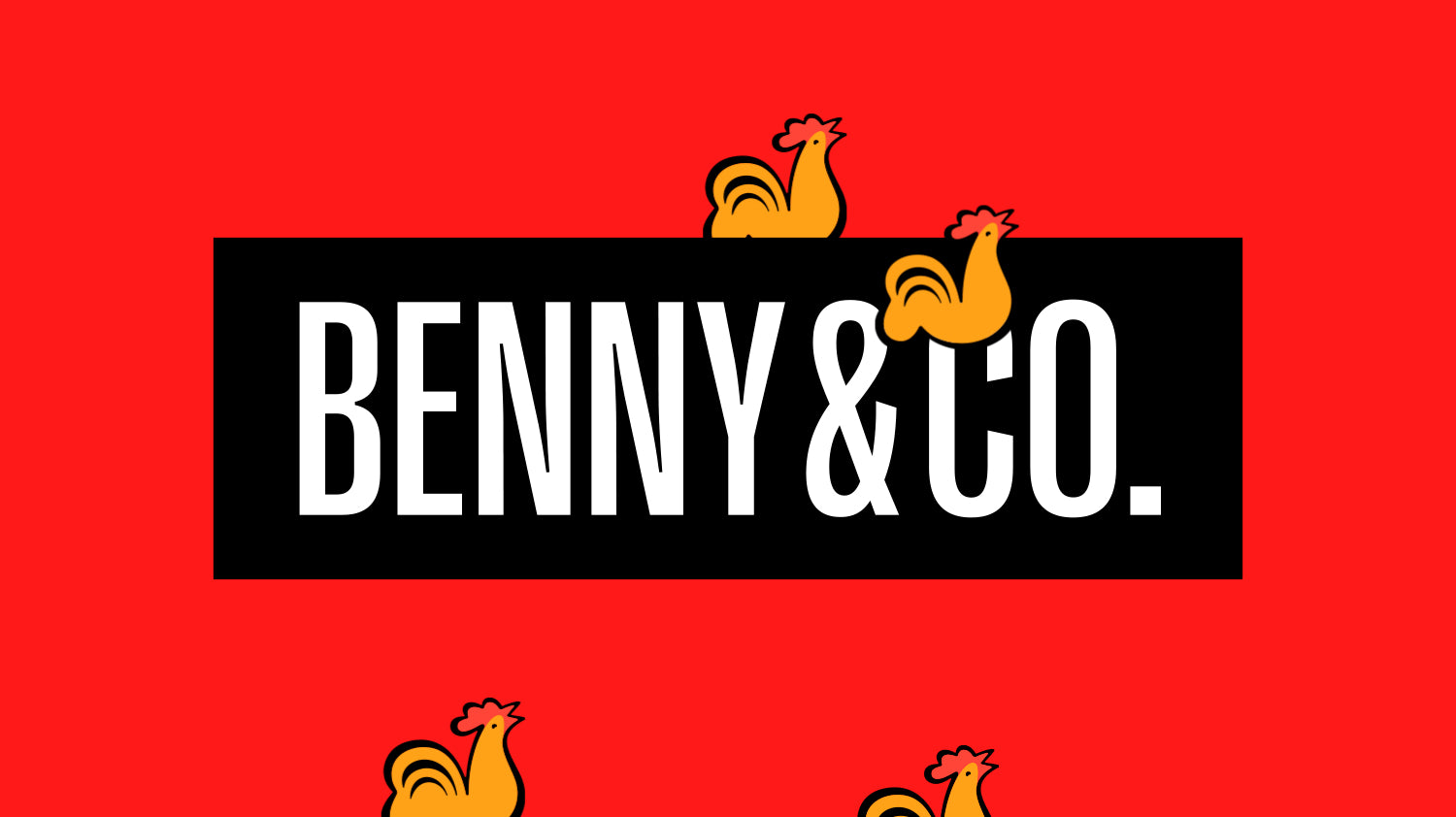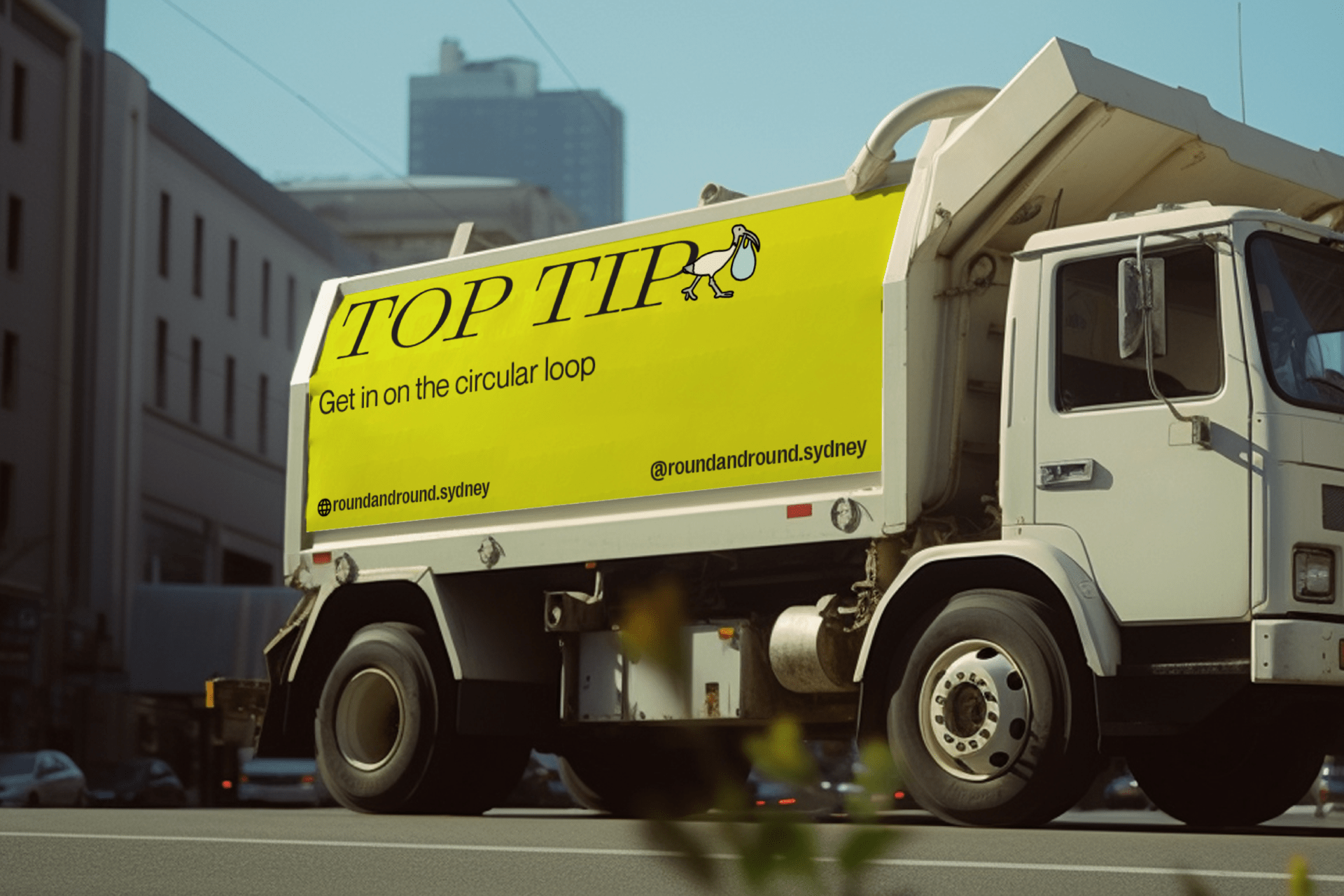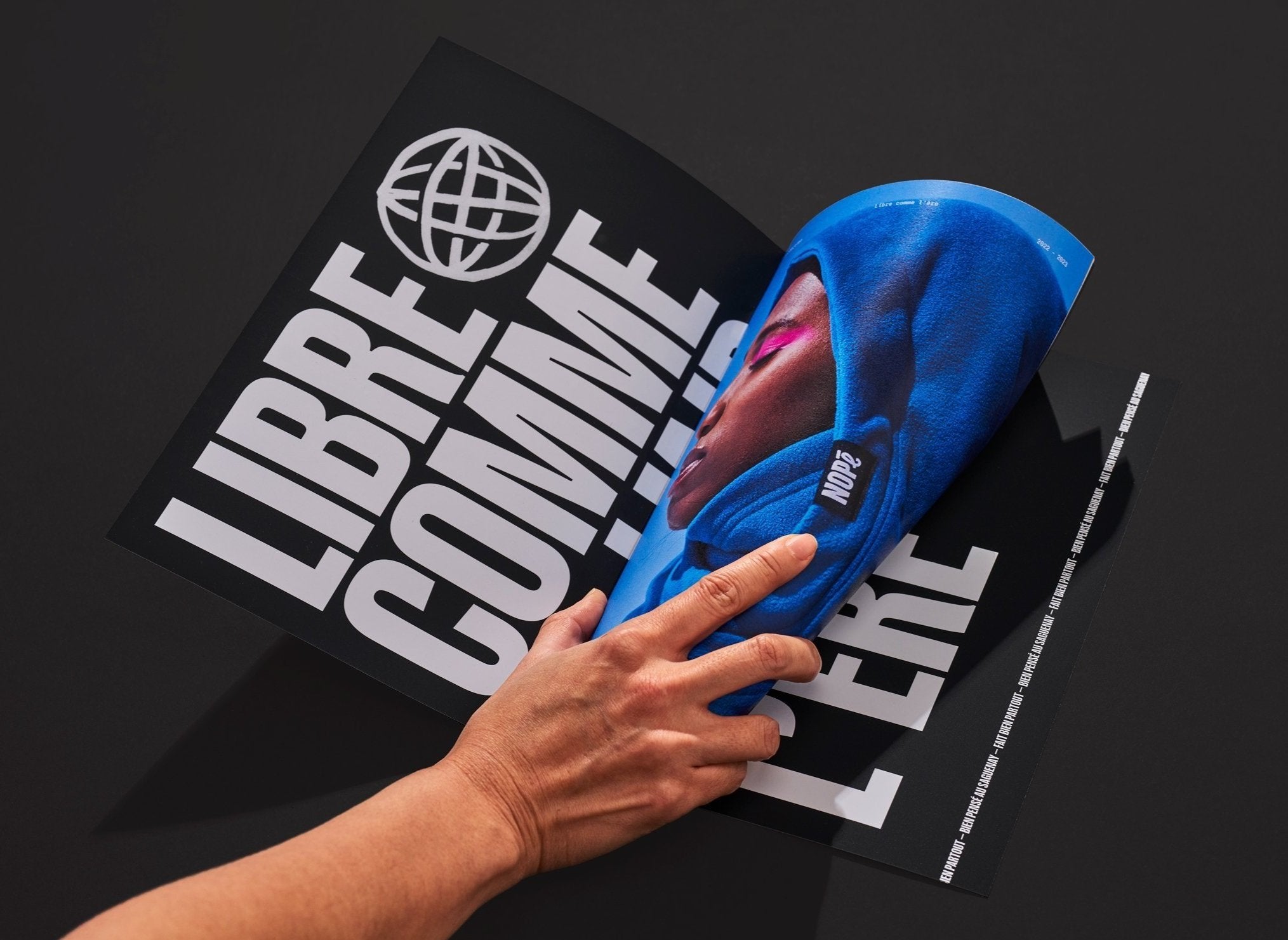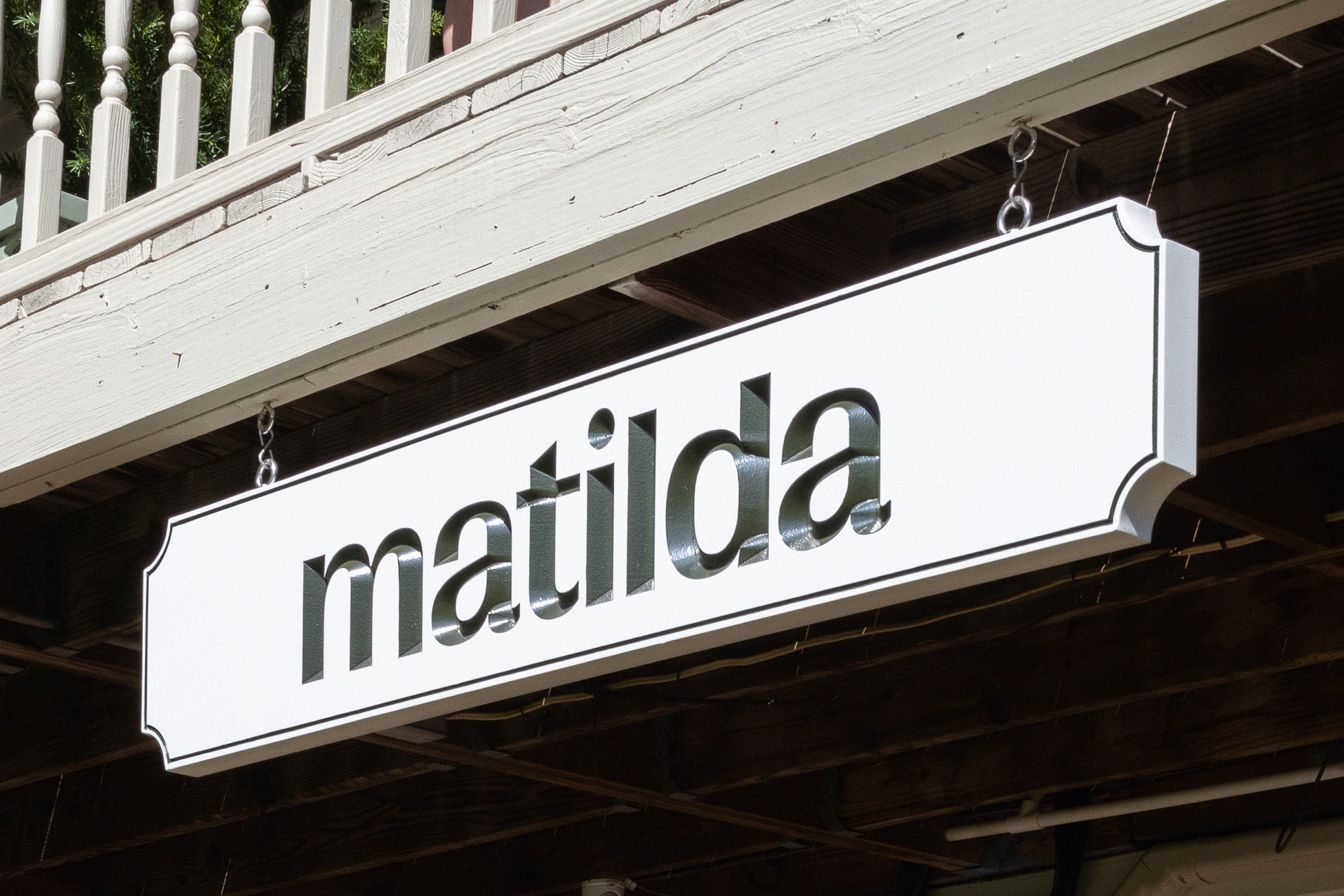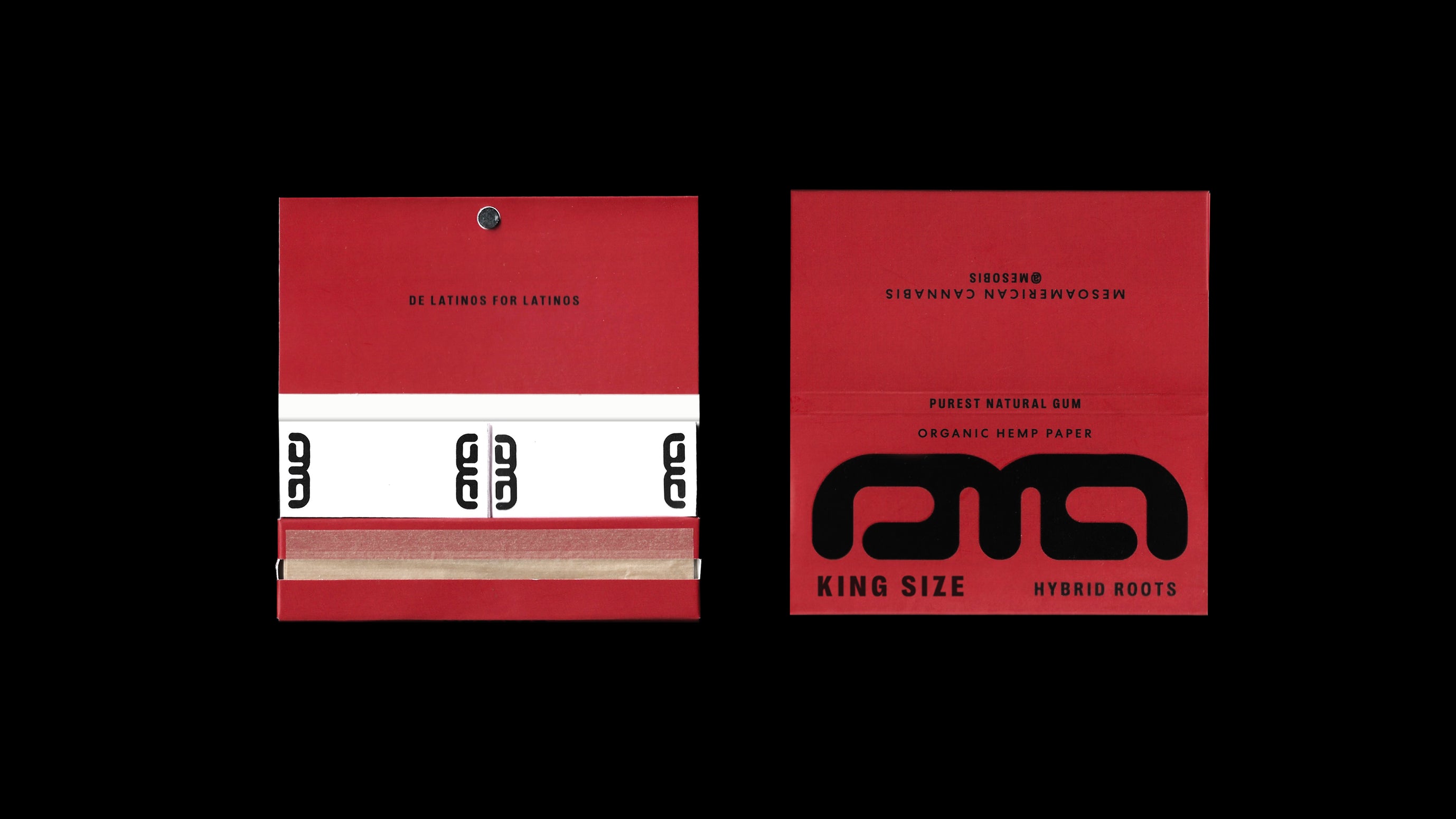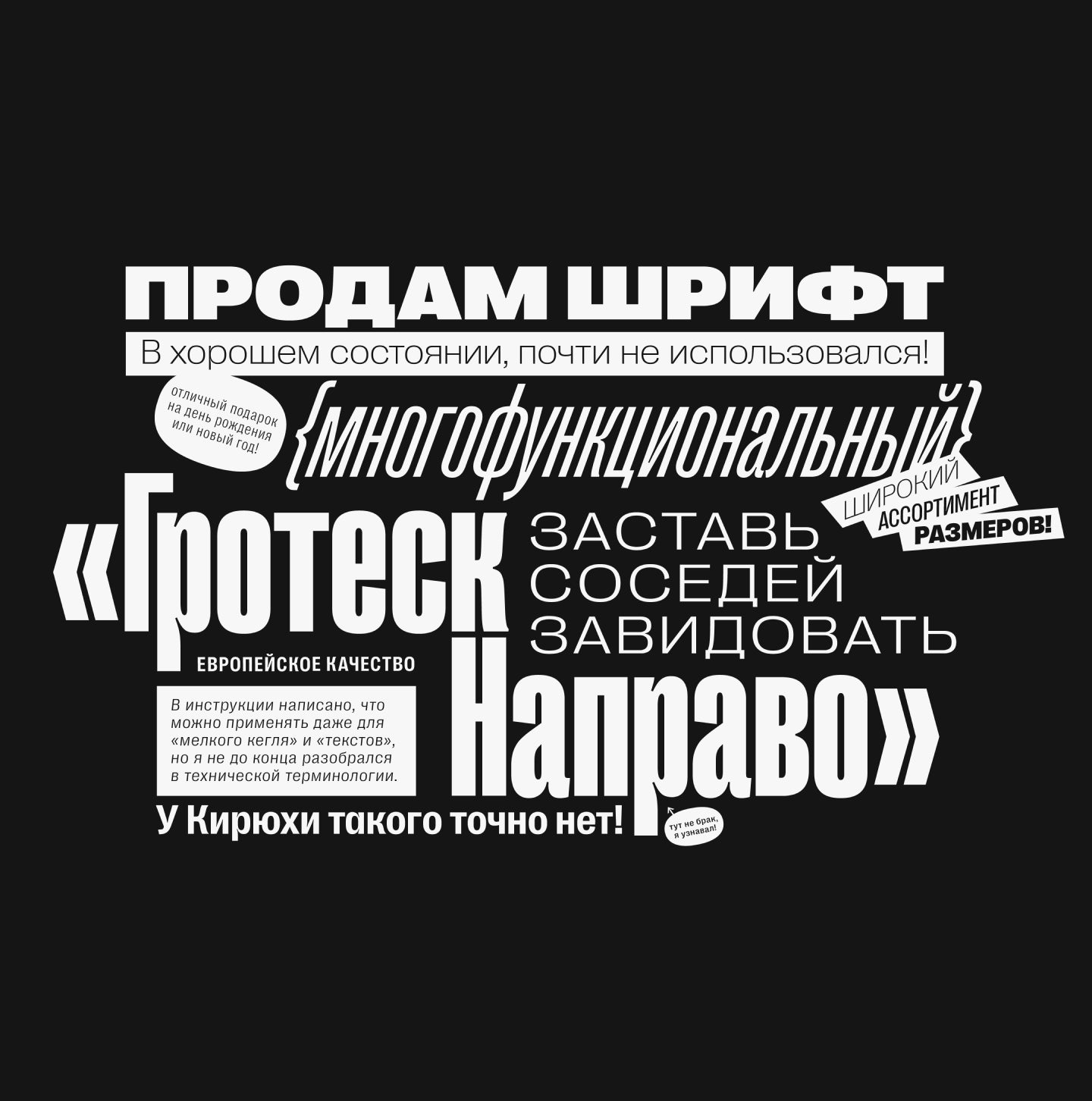
Right Grotesk
Not Trendy. Not Timeless. Just Right. The Font That Reads the Room.
Just Right. Never boring. Always on point.
Right Grotesk blends the neutrality and functionality of workhorses with a good touch of distinctive personality. Featuring many fine details, smooth curves, moderate contrast and slightly unusual anatomy, the typeface can be a loud and proud hero or a humble supporting actor for all sorts of designs.
Not trendy, not timeless either, it was designed to be a versatile and high-quality type family for both serious and fun projects. It was designed to be just Right.
7 Display Cuts + 5 Text Cuts (130 Styles Total) with 789 Glyphs each
Including Cyrillic Support